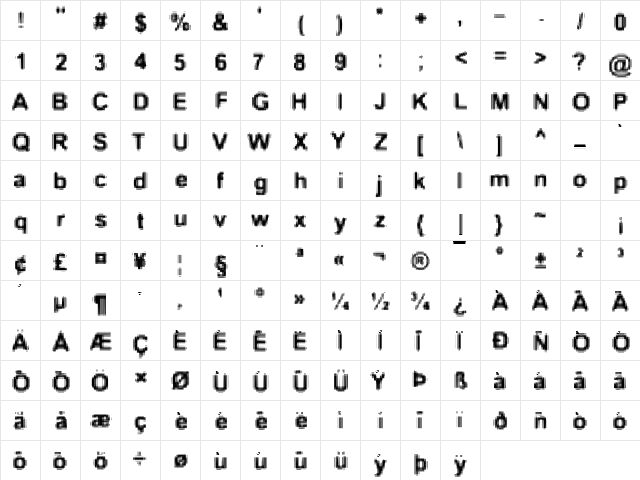
Glass Becker Normal Font Preview
Glass Becker Normal
Design Context for Glass Becker Typeface
Glass Becker is a composed and adaptable typeface that performs quietly and consistently across a wide range of design contexts.